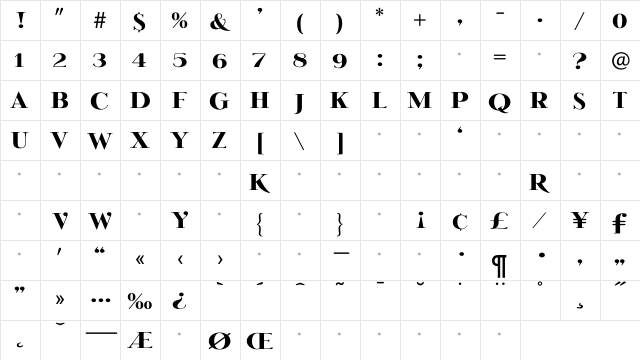
HondurasSolid Regular
Design Context for HondurasSolid Typeface
HondurasSolid takes a measured approach to typography — its balanced proportions and neutral character make it a reliable workhorse for both digital and print work.
Pro Tip: Pair HondurasSolid with a font of contrasting weight or personality to build a more expressive typographic hierarchy.